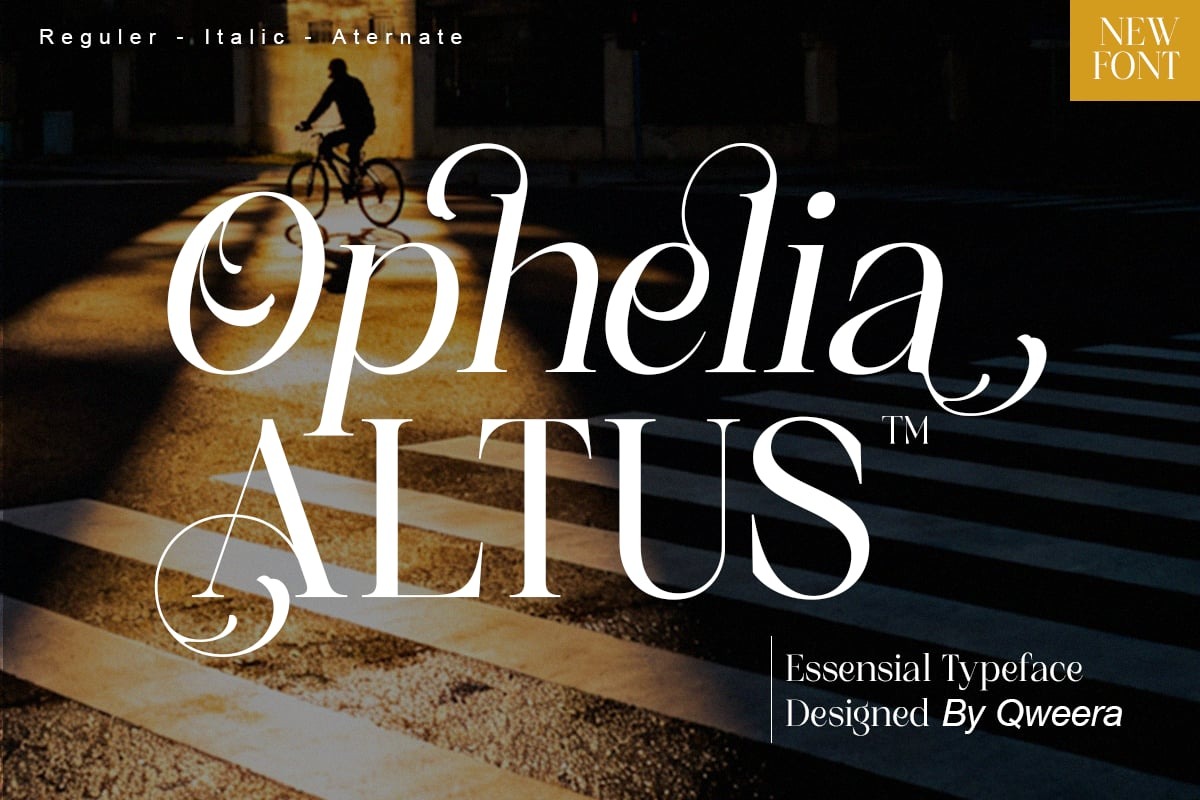
Ophelia Altus – Elegant Serif Font
Ophelia Altus – Elegant Serif Font is a distinctive and expressive font crafted to bring personality, structure, and creative energy into your projects. Ophelia Altus is an elegant decorative serif typeface featuring beautiful swashes, refined letterforms, and luxurious styling. Designed to create a sophisticated visual presence, this font combines timeless serif elegance with artistic decorative details.
Perfect for luxury branding, wedding invitations, fashion editorials, beauty packaging, boutique logos, and premium stationery. Ophelia Altus adds charm, elegance, and exclusivity to every design.
Its stylish alternates and distinctive decorative characters make it ideal for designers seeking memorable luxury typography.